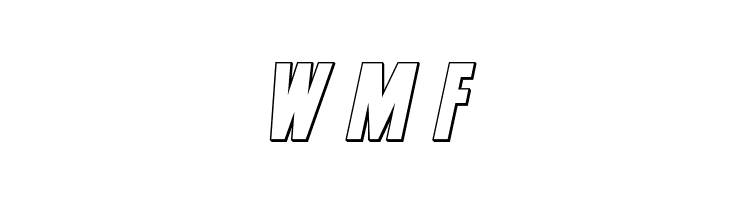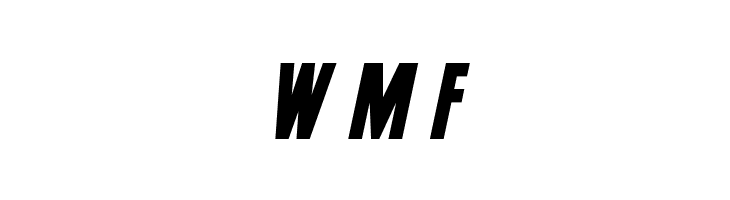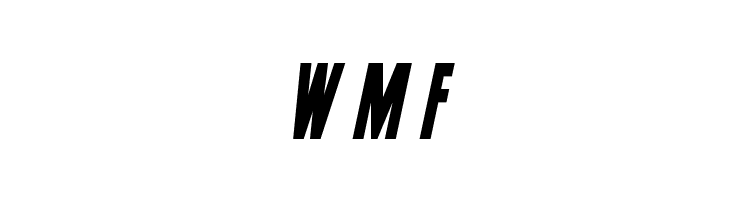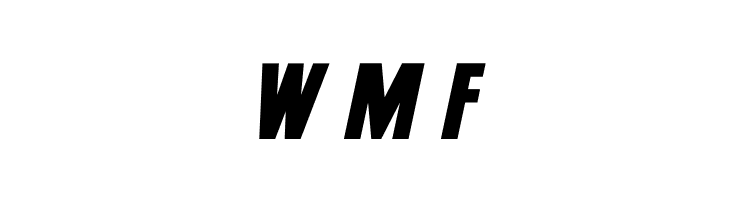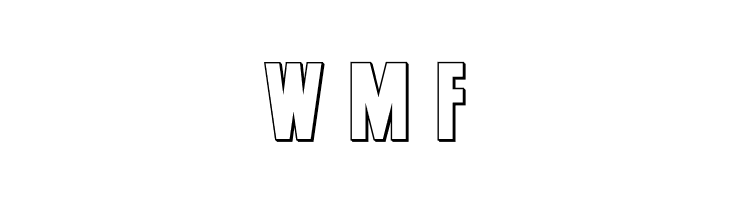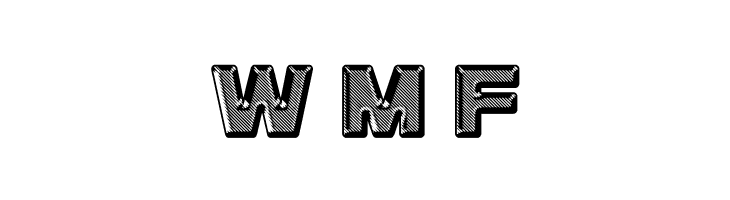
A playful, dot-based decorative font ideal for eye-catching designs.
An elegant, flowing script font with a modern twist and medium contrast.
A playful, casual handwritten font with bold, rounded characters.
A modern vintage font with elegant curves and sharp angles, perfect for creative projects.
A bold, geometric font with a 3D offset effect, ideal for modern designs.
A tall, narrow font with high contrast and a modern, sophisticated style.
A geometric, modern font with clean lines and a structured appearance.
A classic Blackletter font with intricate detailing and medieval elegance.
A modern, playful font with rounded characters and consistent stroke width.
A hand-drawn, artistic font with expressive and whimsical characters.
A dramatic blackletter font with ornate, gothic-inspired details.
A bold, weapon-themed decorative font with gothic influences.
A bold, outlined italic font with a modern and dynamic style.
A decorative font with characters inside heart shapes, perfect for romantic designs.
A modern, wide, and geometric font with rounded edges and a futuristic style.
A tall, narrow font with elegant curves and a modern aesthetic.
A modern, geometric font with a sleek, condensed design.